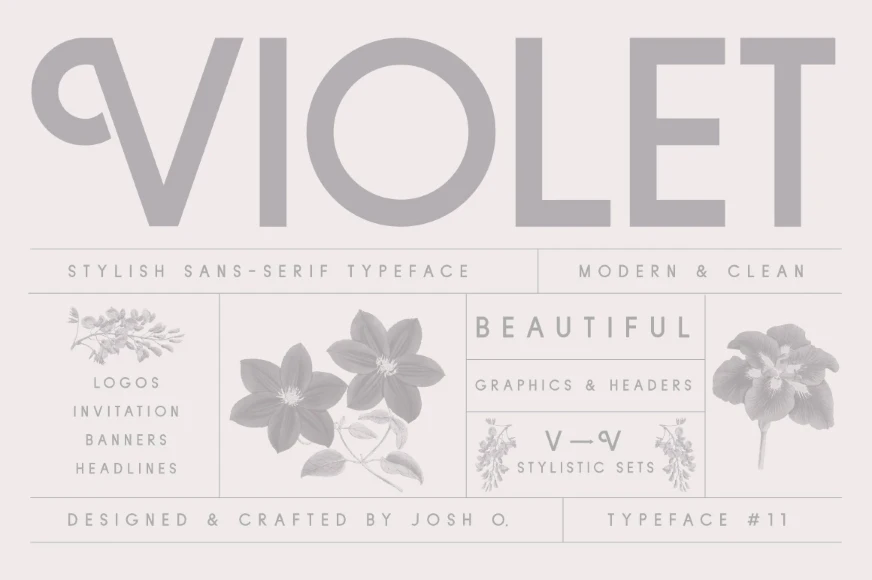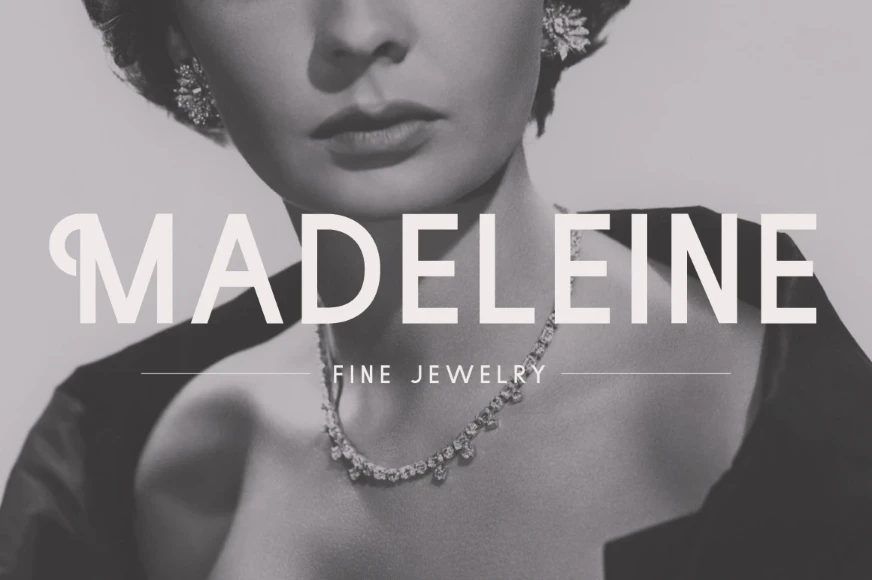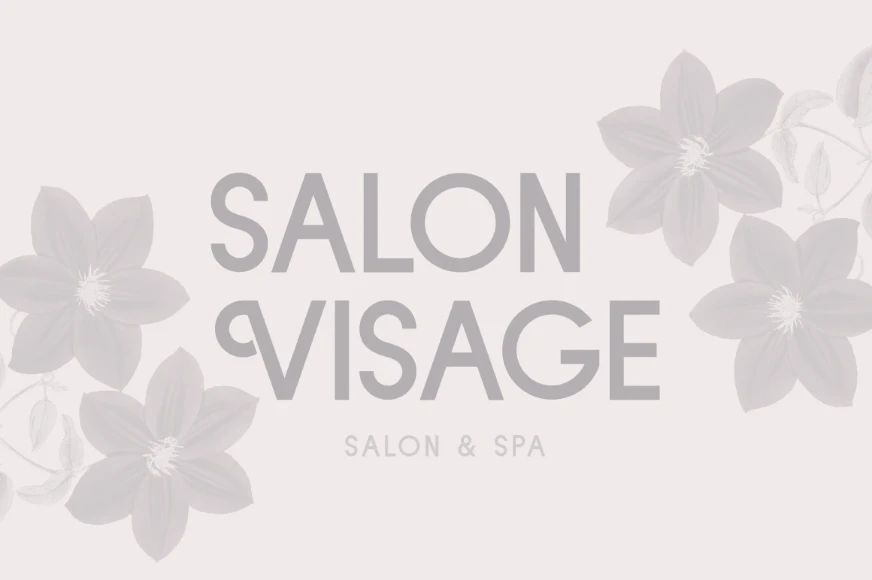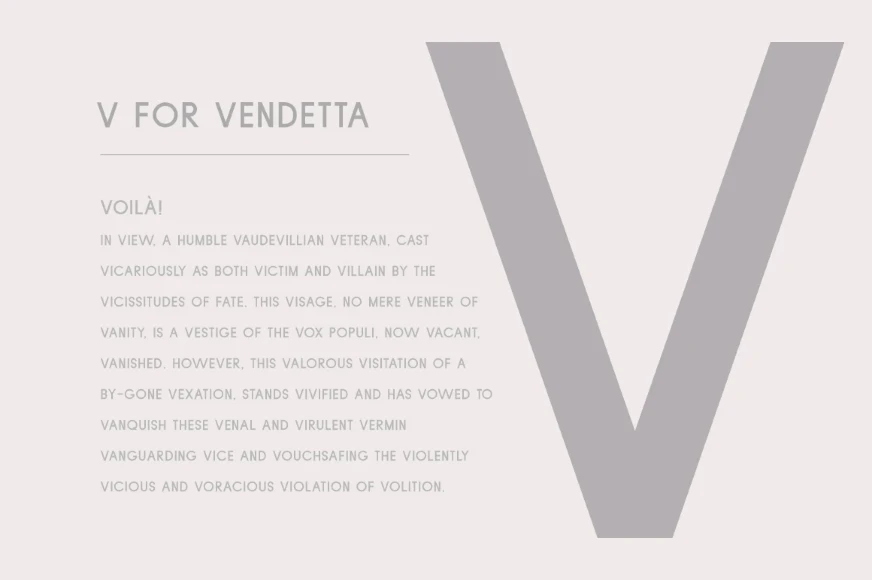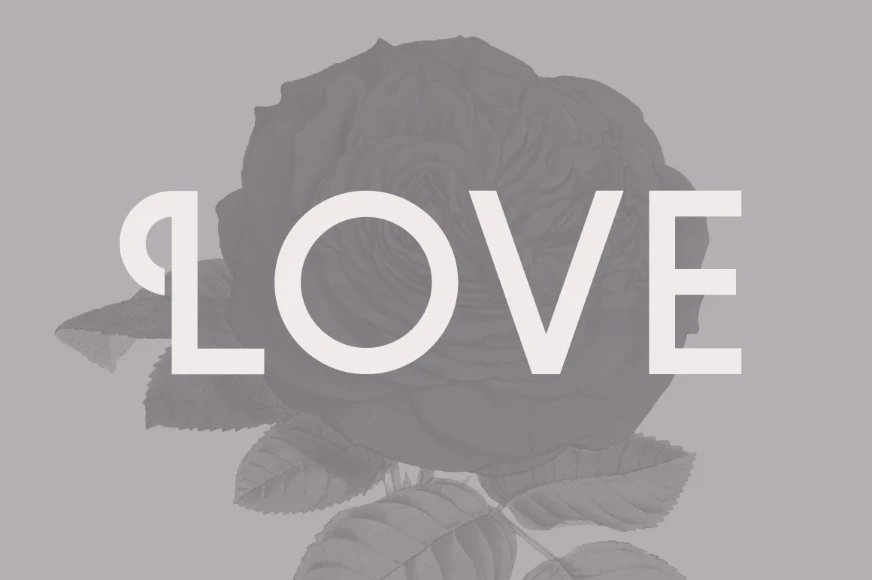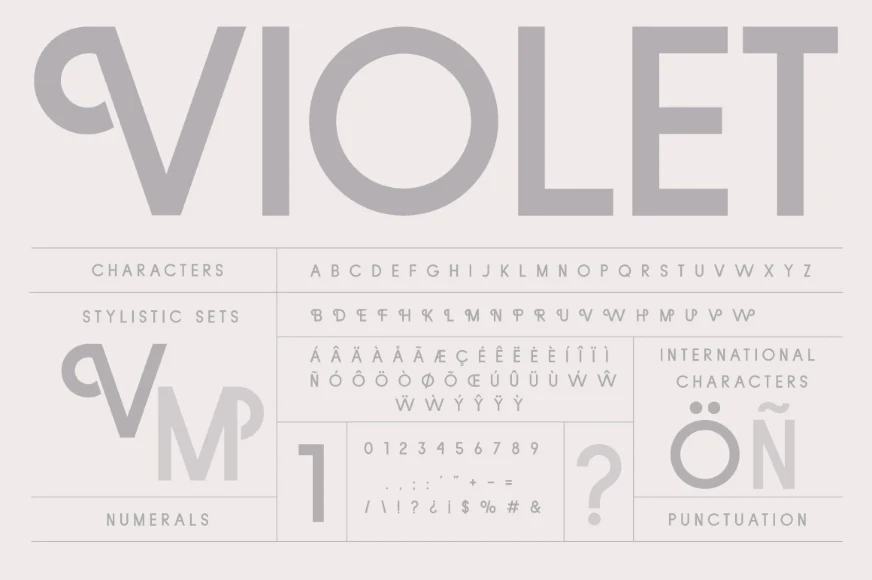
Violet
From Josh Ownby
Violet is a geometric sans serif striking a balance between tradition and individuality. Its all-caps stature ensures every composition feels considered and controlled. Almost monolinear by design, use it in contexts where clarity, confidence, and visual structure are key. Some details are reminiscent of a bygone era, but it remains sleek and modern nonetheless. Violet is versatile — ideal for creating display graphics, wedding invitations, logos, headers, and more.
Designed by Josh Ownby